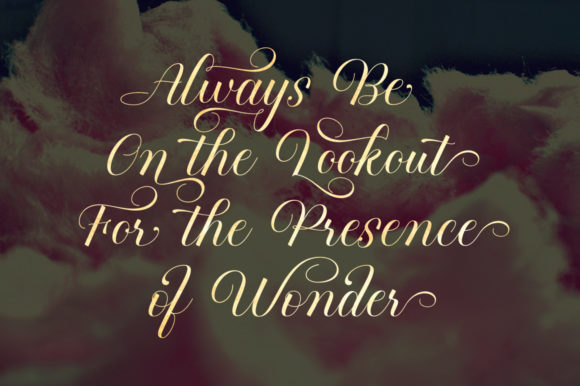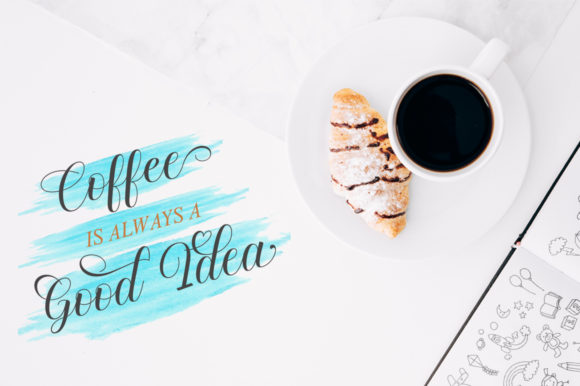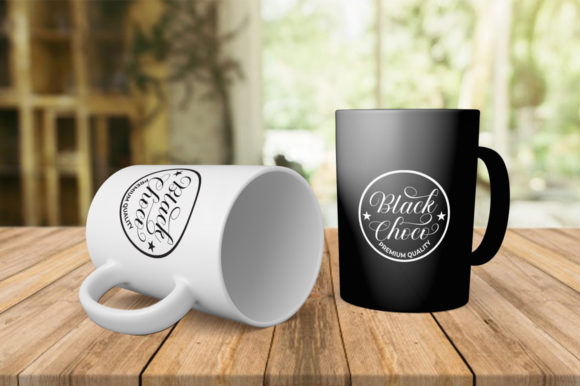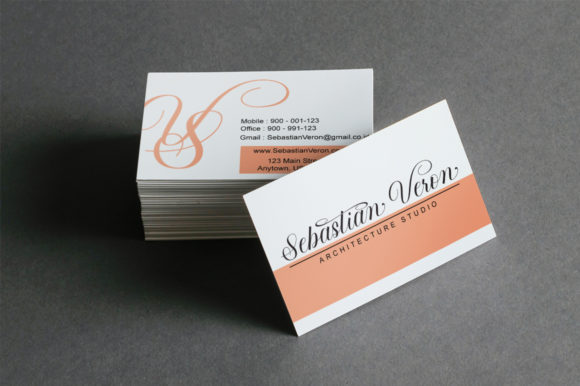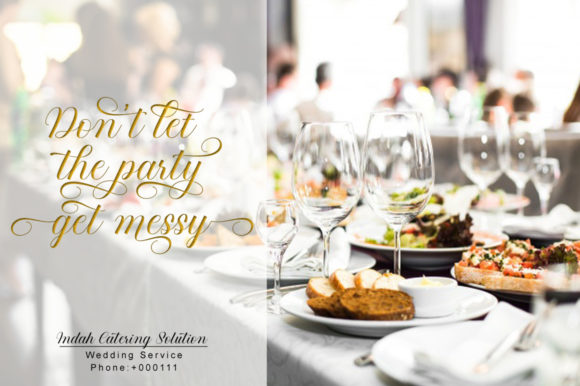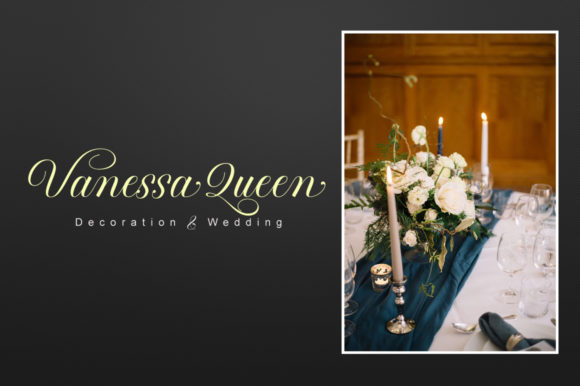
Discover the Elegance of Gabriella Script Font
Are you looking for a font that can add a touch of sophistication and charm to your crafting projects? Look no further than the Gabriella Script Font. This beautiful script font is designed to make your creations stand out with its bold swashes and elegant lettering.
What is Gabriella Script Font?
Gabriella is a charming and extraordinary script font with bold swashes. It’s the ideal font for adding a cool feel to any crafting project. The font features beautiful, flowing letters with decorative swashes that add a touch of luxury and elegance. Whether you’re working on a DIY craft, creating a logo, or designing a card, Gabriella Script Font is the perfect choice.
Key Features of Gabriella Script Font
- Bold Swashes: The font features bold, decorative swashes that add a touch of drama and elegance to your designs.
- Elegant Lettering: The letters are beautifully designed with a flowing script style that is perfect for creating sophisticated designs.
- Versatile: Gabriella Script Font can be used for a variety of crafting projects, including DIY crafts, logos, cards, and more.
Uses of Gabriella Script Font
Gabriella Script Font is a versatile font that can be used for a variety of crafting projects. Here are some ideas to get you started:
- DIY Crafts: Use Gabriella Script Font to add a touch of elegance to your DIY crafts, such as scrapbooking, paper crafting, and more.
- Logo Design: The font is perfect for creating logos for businesses, events, and more.
- Card Making: Add a touch of sophistication to your handmade cards with Gabriella Script Font.
- Sign Making: Use the font to create beautiful signs for special events, parties, and more.
Tips for Using Gabriella Script Font
Here are some tips for using Gabriella Script Font in your crafting projects:
- Experiment with Colors: Try pairing the font with different colors to create unique and eye-catching designs.
- Play with Swashes: Experiment with different swash styles to add drama and elegance to your designs.
- Mix and Match: Try pairing Gabriella Script Font with other fonts to create interesting and dynamic designs.
Why Choose Gabriella Script Font?
There are many script fonts available, but Gabriella Script Font stands out from the rest. Here are some reasons why:
- Unique Design: The font features a unique and elegant design that is sure to make your creations stand out.
- High-Quality: The font is high-quality and easy to read, making it perfect for a variety of crafting projects.
Gabriella Script Font is a beautiful and elegant font that is perfect for adding a touch of sophistication to your crafting projects. With its bold swashes and elegant lettering, it’s the ideal font for DIY crafts, logo design, card making, and more. Whether you’re a designer or crafter, Gabriella Script Font is a great choice for anyone looking to create unique and eye-catching designs.